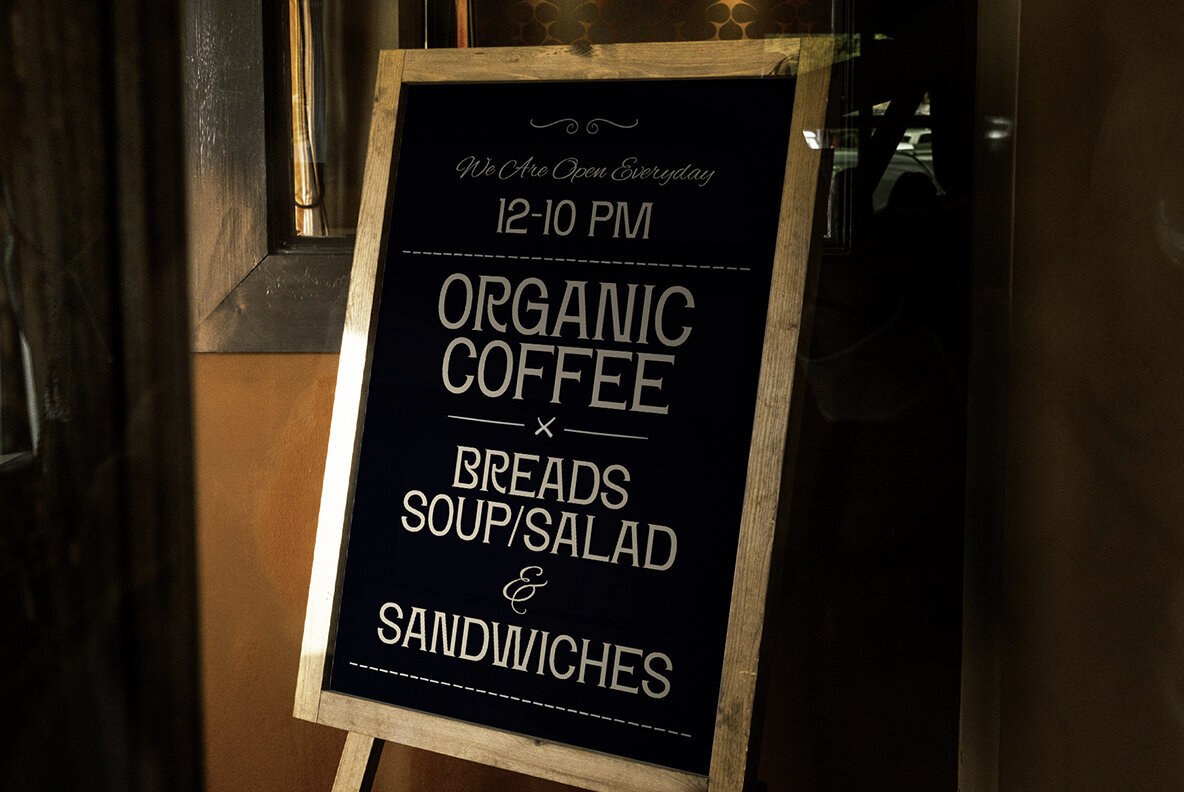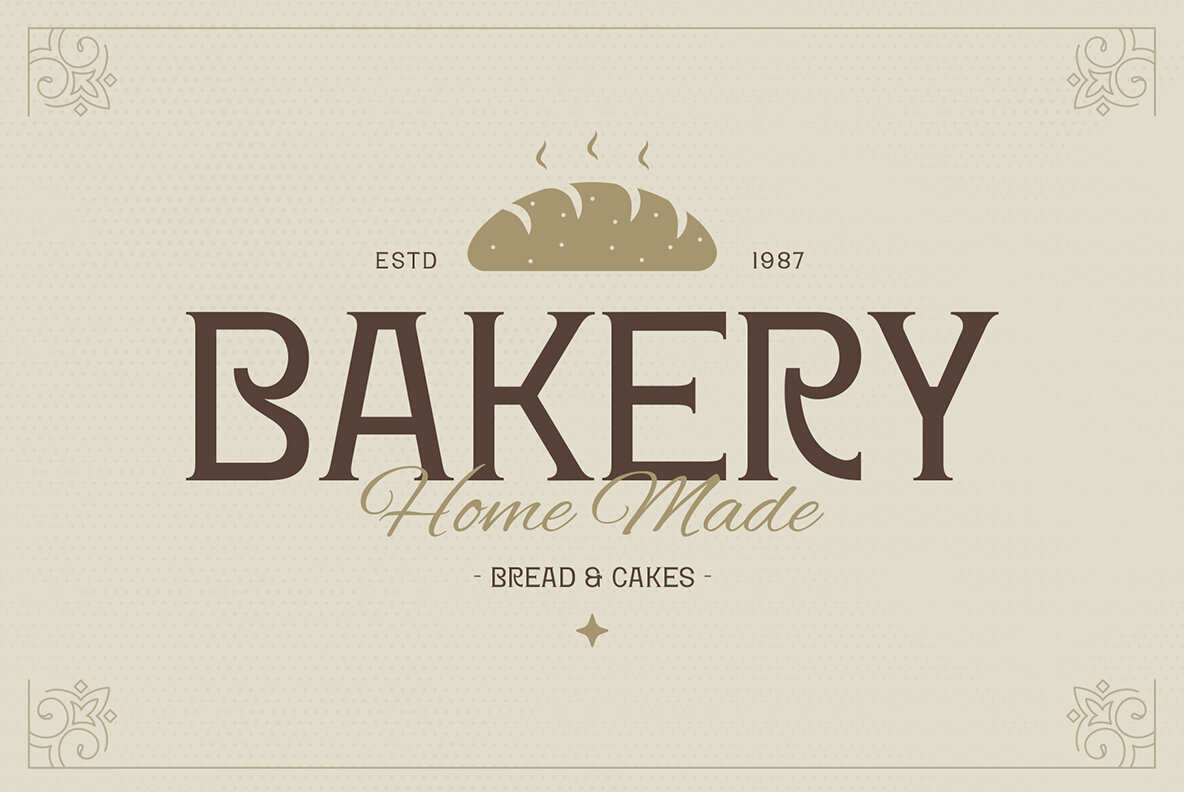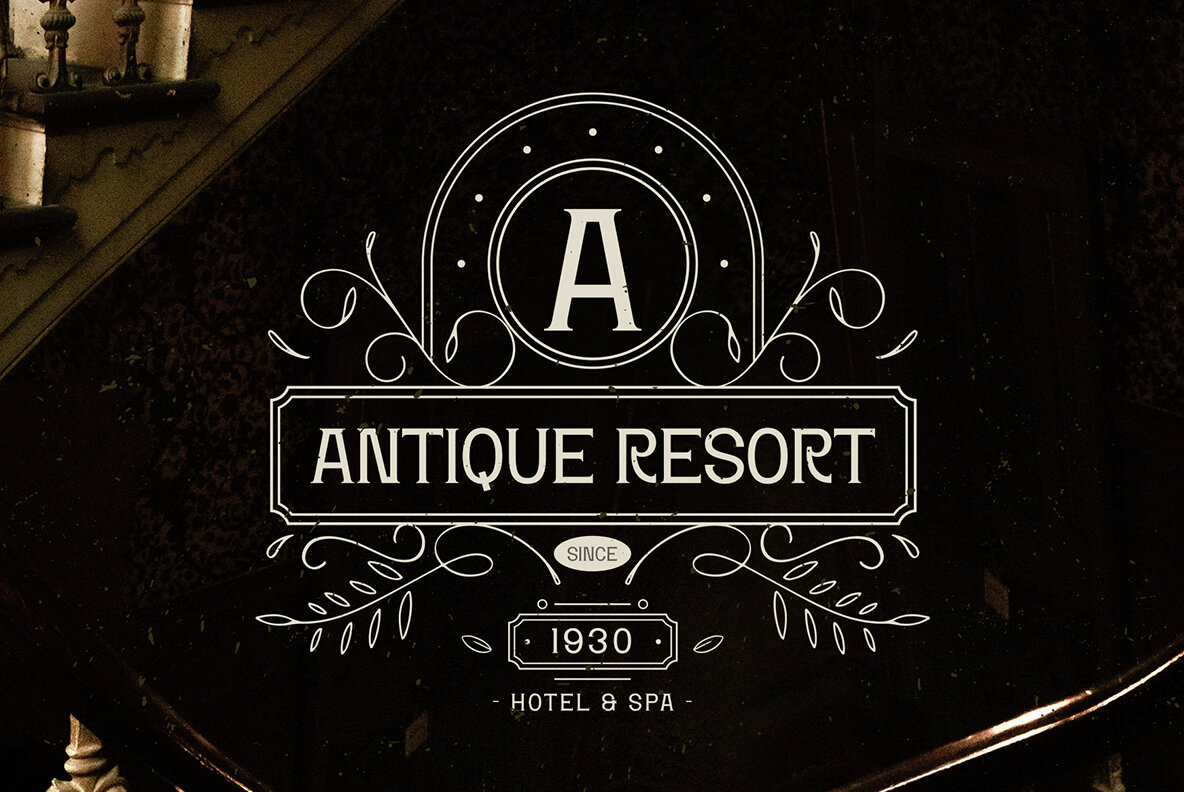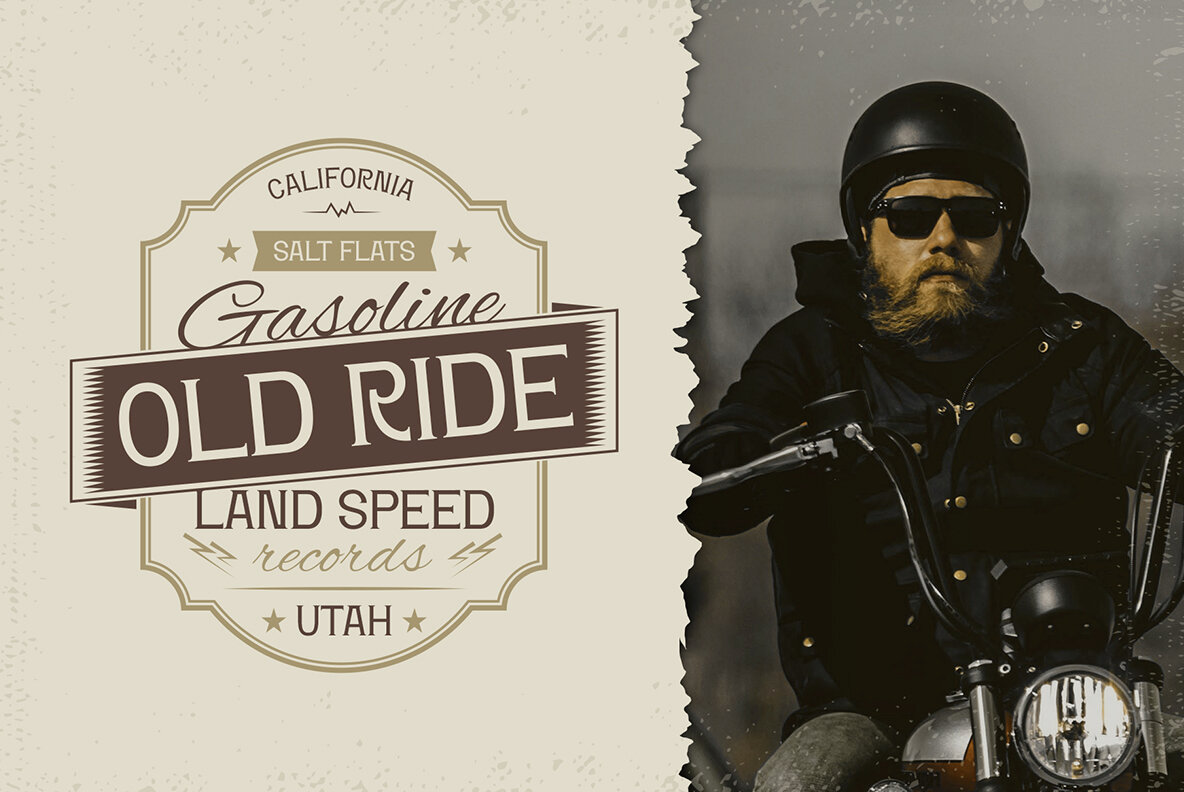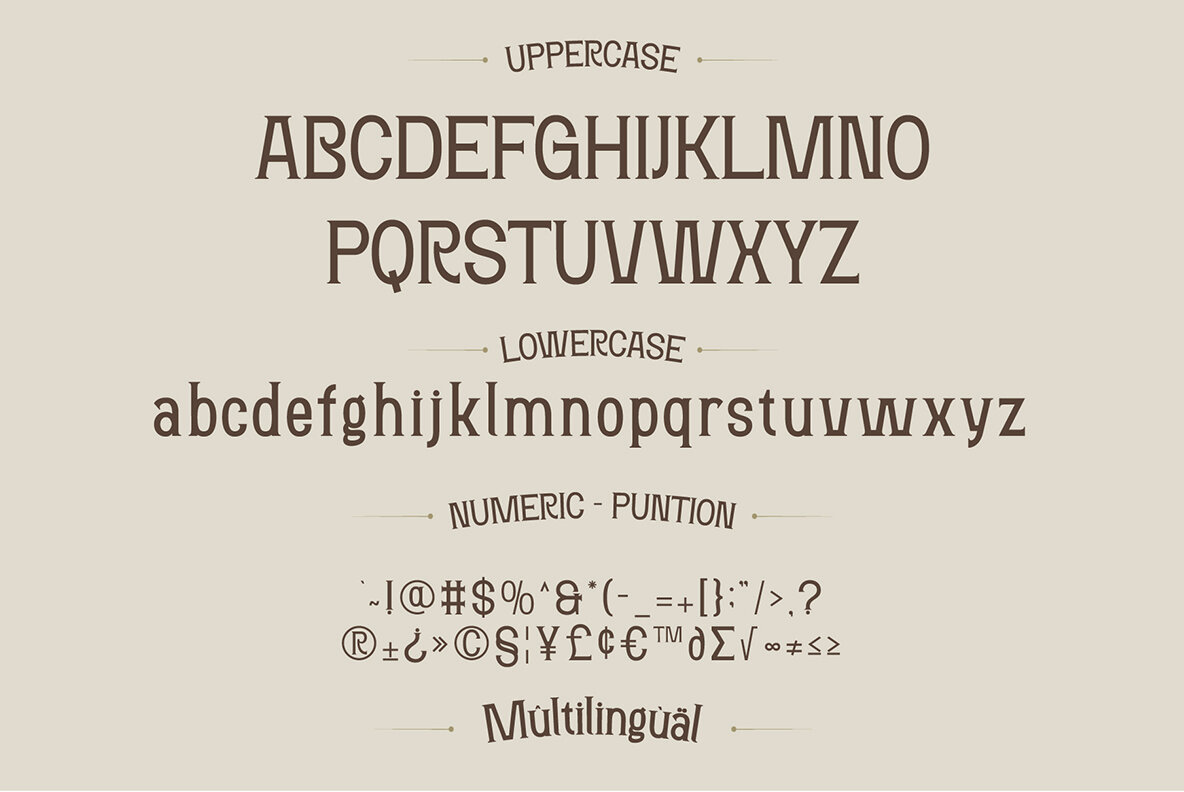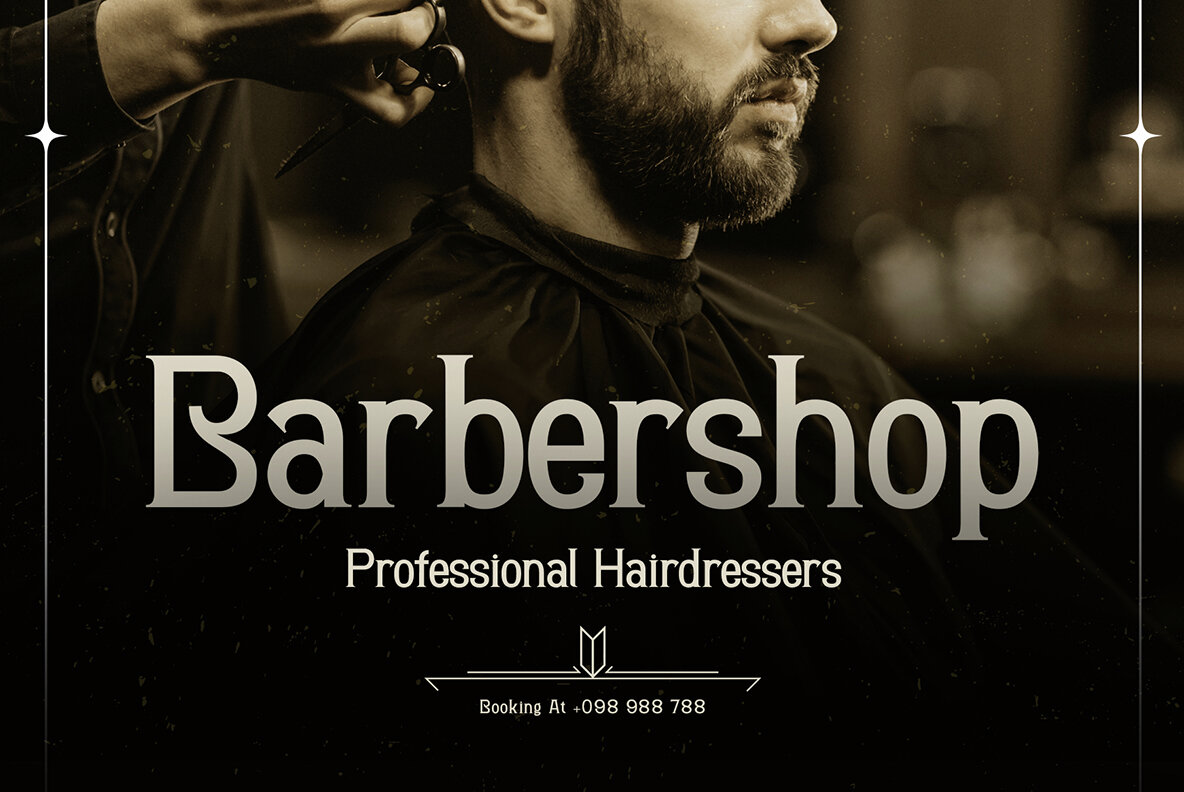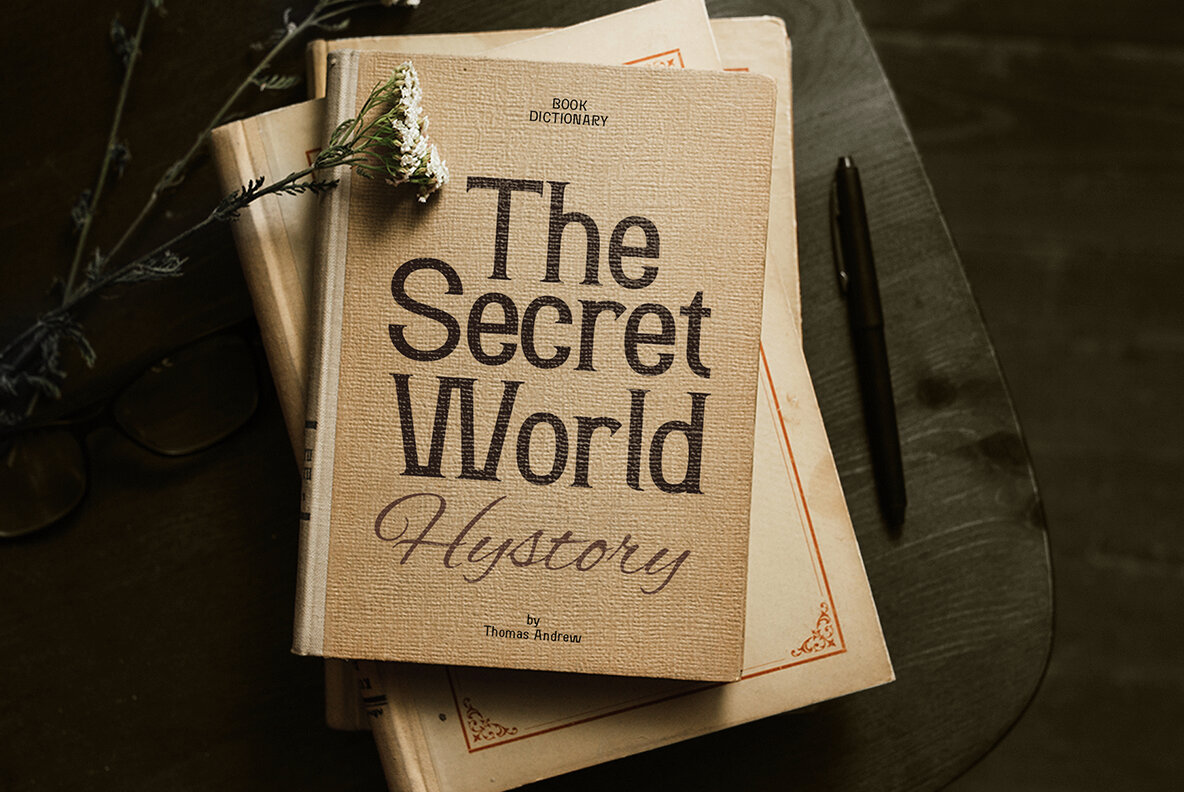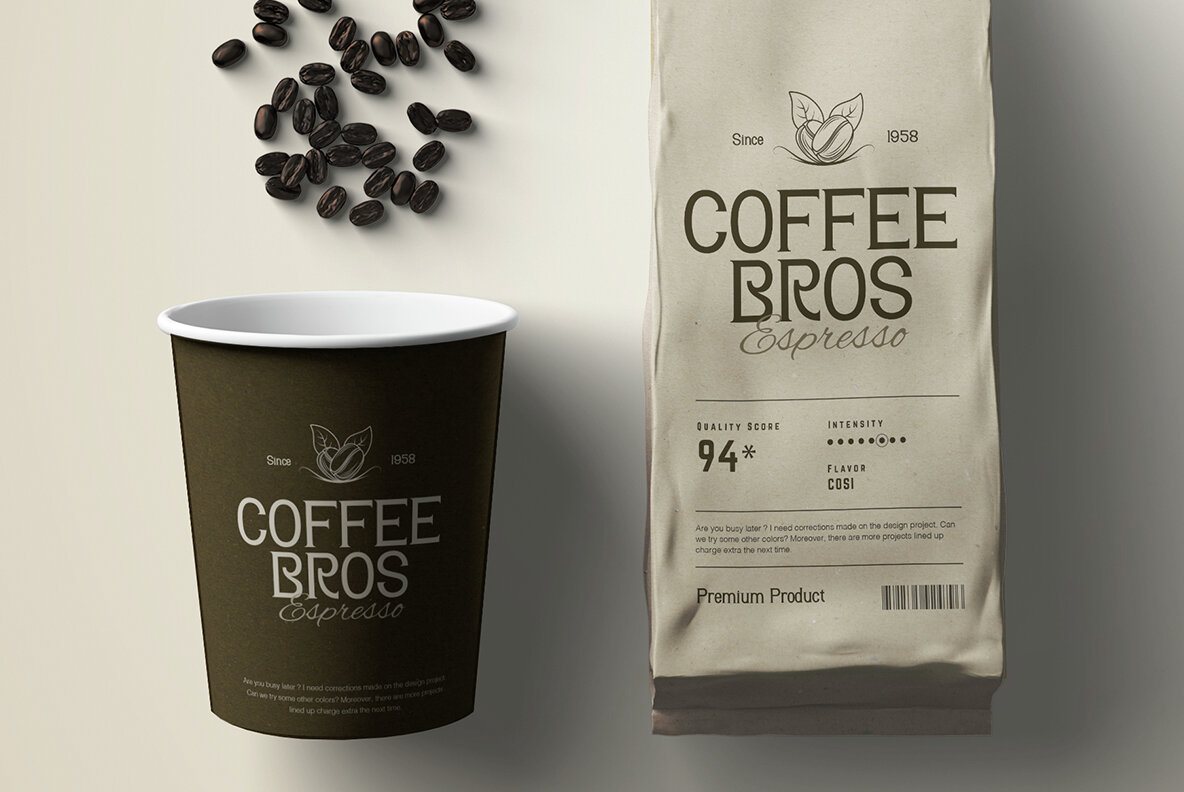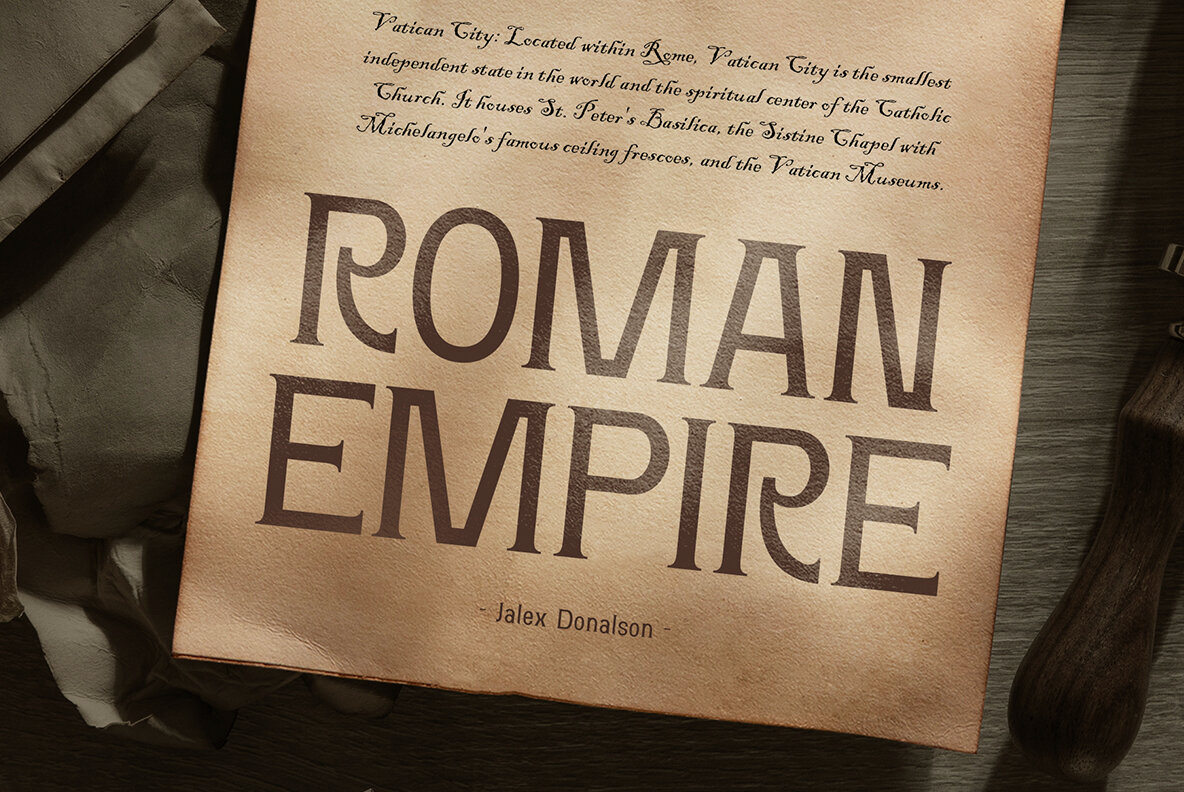
Robous Font
Robous Regular
Introducing ROBOUS - a Classy Retro Display Font that marries simplicity with a retro appeal, accentuated by a clever twist that piques interest. ROBOUS is perfect for a myriad of display purposes, whether it's transforming a basic t-shirt into a statement piece, adding charm to packaging designs, enhancing signages and posters with a dash of nostalgia, or infusing logos and labels with a distinct vintage character.